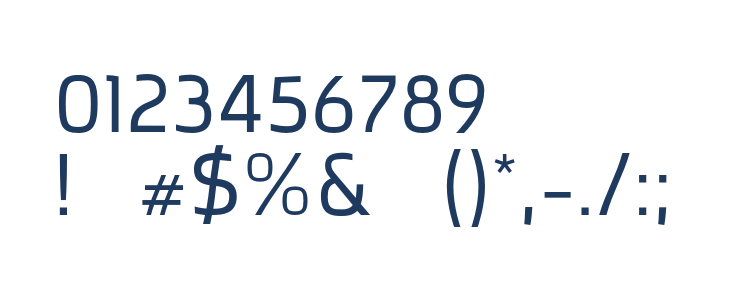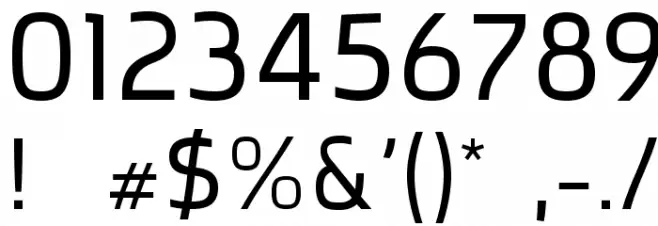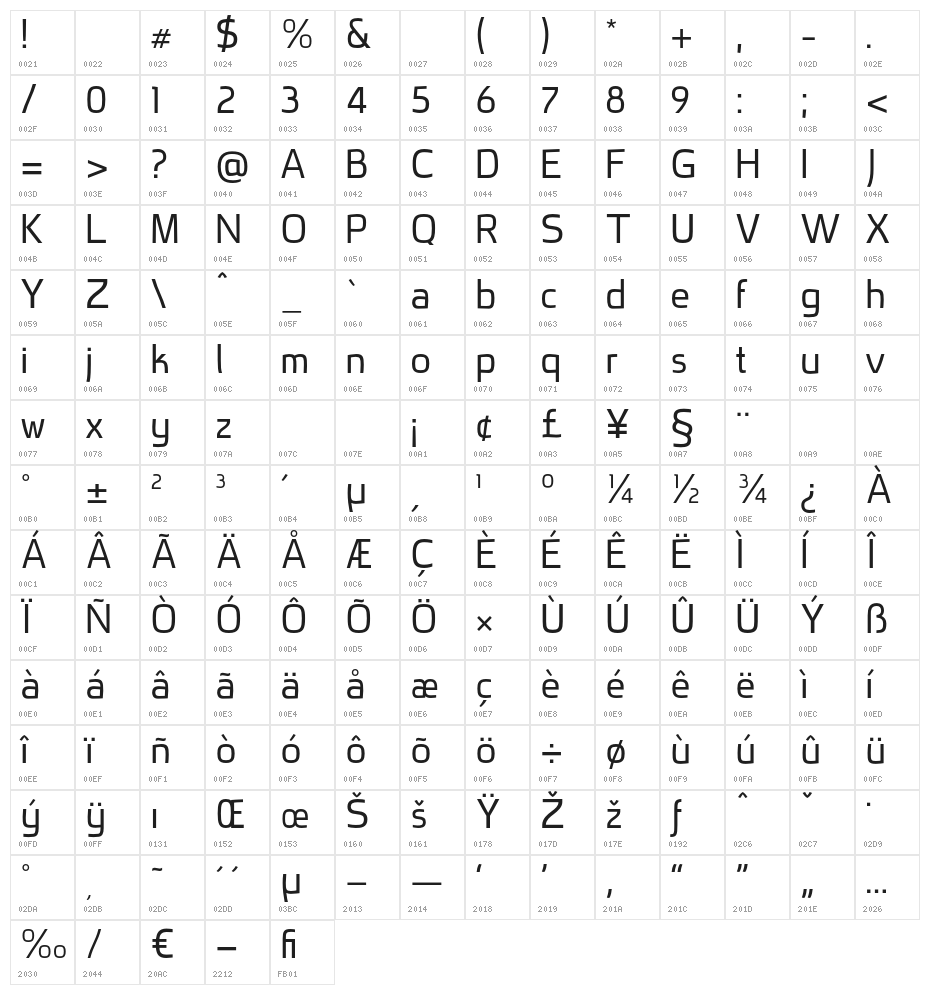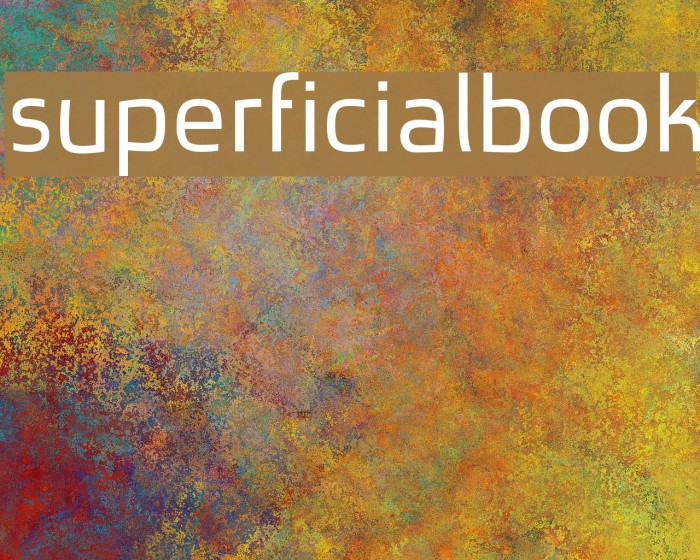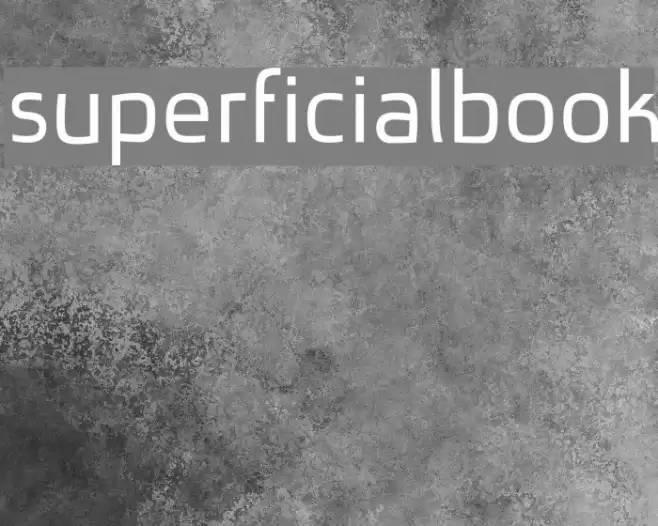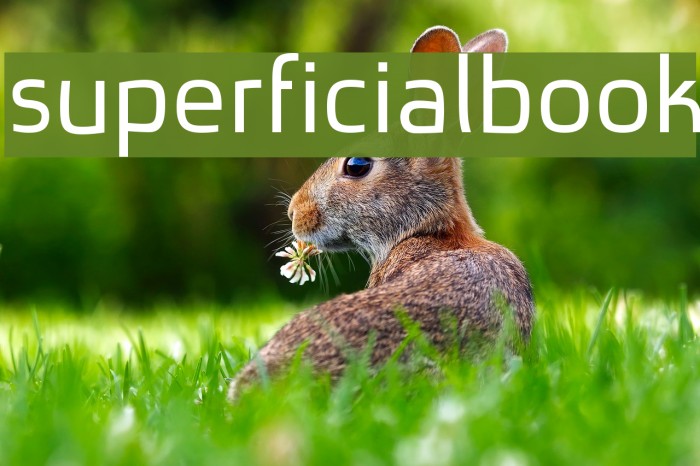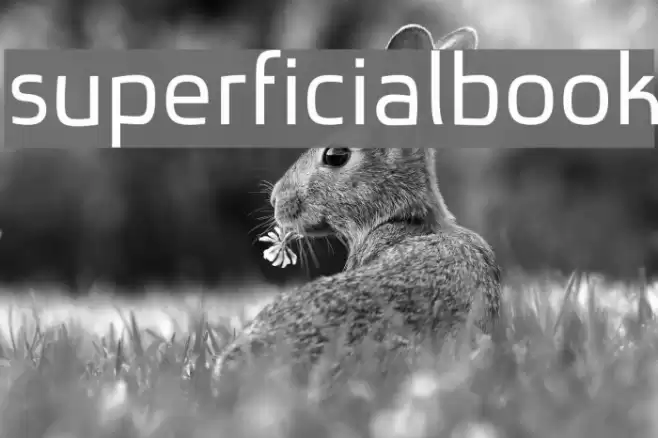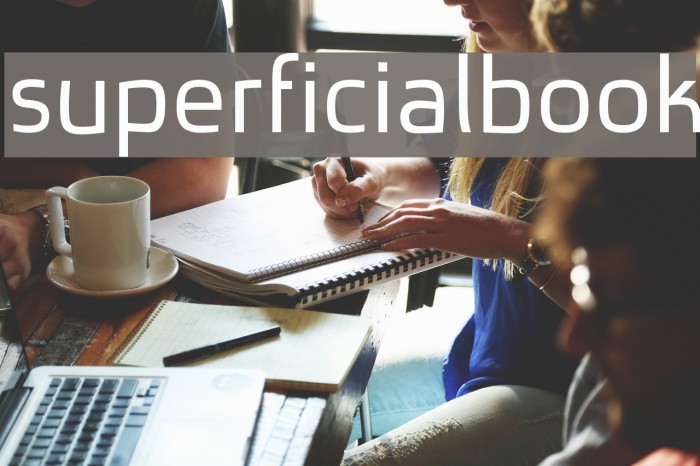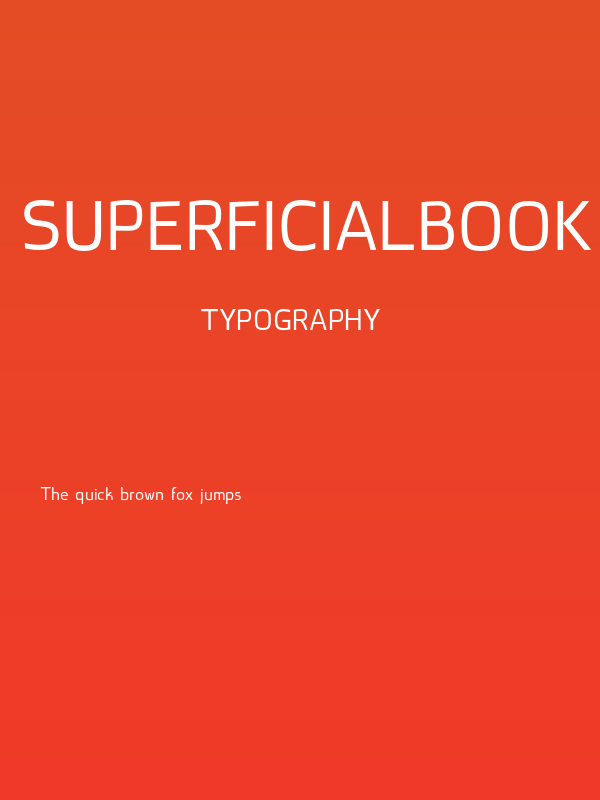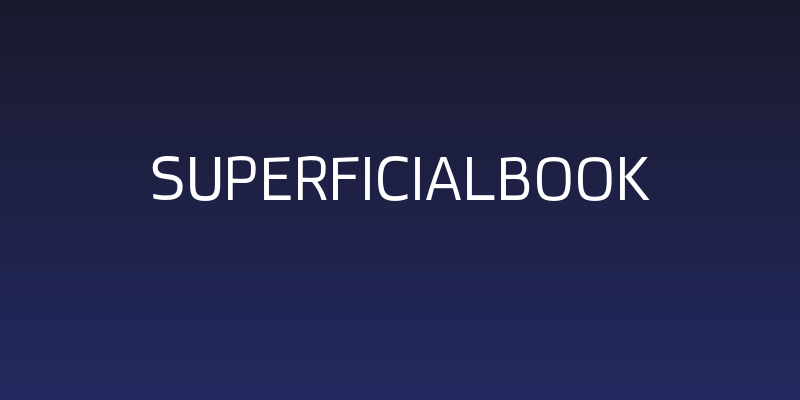
superficialbook Font
superficialbook Description
This font features a clean and modern sans-serif design, characterized by its geometric shapes and uniform stroke widths. The uppercase letters are bold and assertive, while the lowercase letters maintain a consistent height and spacing, providing excellent readability. The numerals are distinct and well-proportioned, making them suitable for various applications. Special characters are included, offering versatility for different contexts. The overall appearance is sleek and professional, making it ideal for contemporary design projects.